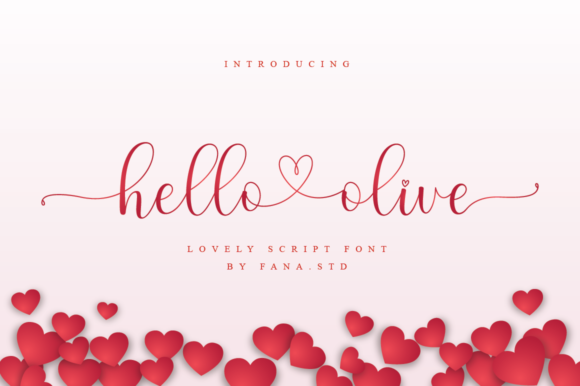
Introducing Hello Olive Font, a captivating addition to your font collection. Crafted with love by fanastudio, this script font offers a sweet and soft hand-lettered style that is sure to make a lasting impression.
Hello Olive Font exudes an authentic feel, making it perfect for various creative projects. Whether you're designing enchanting wedding invitations, crafting beautiful stationary art, or seeking to create eye-catching social media posts, this font has you covered. Its charming and delicate strokes will add a touch of elegance and uniqueness to your designs.
Immerse yourself in the world of Hello Olive Font and let your creativity flourish. With its graceful curves and impeccable letterforms, this font will effortlessly bring your ideas to life.
Picture this: stunning wedding invitations adorned with the playful yet sophisticated Hello Olive Font. Each word, each letter, infused with love and personality. Your guests will be captivated by the inviting warmth that this font exudes, setting the tone for a memorable celebration.
But it doesn't stop there. Hello Olive Font also shines in the realm of stationary art. Imagine creating one-of-a-kind pieces, each stroke reflecting your artistic vision. From personalized notepads to elegant letterheads, this font will elevate your designs, leaving a lasting impression on those who receive them.
Social media is all about capturing attention in a crowded digital world. With Hello Olive Font, your posts will stand out effortlessly. Its eye-catching appeal and graceful nature will ensure that your messages are noticed and remembered. Whether you're promoting your brand or sharing inspiring quotes, this font will add that special touch of creativity and charm.
And let's not forget about greeting cards. Hello Olive Font will bring joy and cuteness to every occasion. From birthdays to anniversaries, each sentiment will be beautifully conveyed through this font's whimsical style. Your loved ones will cherish the heartfelt messages you create with Hello Olive Font.
So, why wait? Dive into the world of Hello Olive Font and unlock endless possibilities for your creative endeavors. Make a statement, leave a lasting impression, and elevate your designs with this captivating script font.